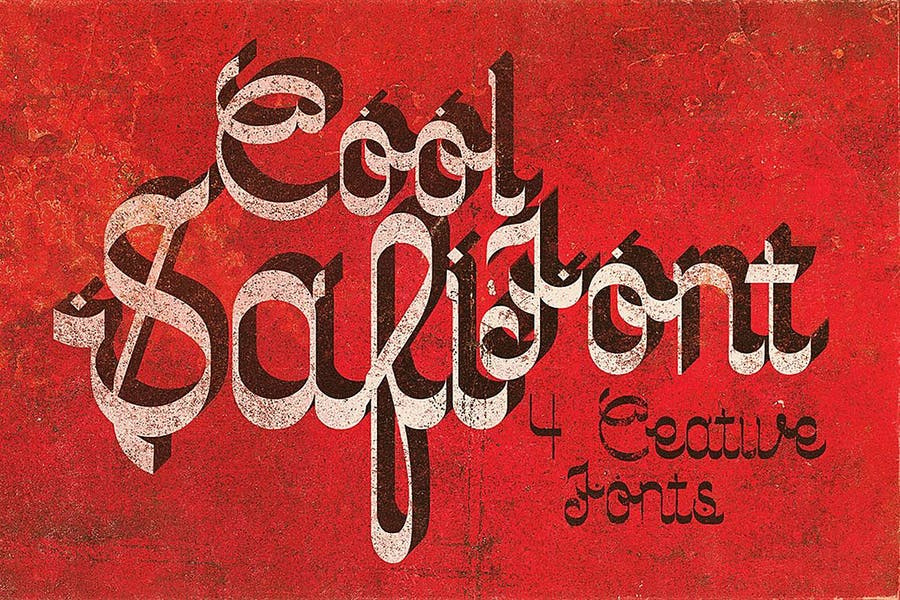
Safi - Unique Calligraphy Font
Safi - Unique Calligraphy Font is perfect for luxury wedding invitations, elegant branding projects, high-end product packaging, sophisticated logo design, premium magazine layouts, fashion boutique signage, fine art exhibitions, upscale restaurant menus, boutique hotel materials, jewelry brand identity, and exclusive event stationery.
Safi - Unique Calligraphy Font is exciting because it masterfully blends traditional calligraphic artistry with contemporary design sensibilities, creating flowing letterforms that dance gracefully across the page while maintaining exceptional readability and sophistication that elevates any project to luxury status.
The Safi - Unique Calligraphy Font family includes elegant variations: Regular, Bold, Light, Swash alternates, Decorative ligatures, and Ornamental elements, offering designers an extensive toolkit for creating refined typographic compositions that capture timeless elegance.
Experience the artistry of handcrafted typography with Safi - Unique Calligraphy Font Free Download. This exquisite calligraphic typeface transforms ordinary text into extraordinary works of art that captivate audiences with their refined beauty and sophisticated charm. Whether you're designing for luxury brands, exclusive events, or premium publications, Safi - Unique Calligraphy Font delivers unmatched elegance and visual impact.
The font's meticulously crafted letterforms showcase the fluid beauty of traditional pen-and-ink calligraphy while incorporating modern design principles that ensure optimal performance across digital and print media. Each character flows seamlessly into the next, creating harmonious compositions that feel both timeless and contemporary.
Safi - Unique Calligraphy Font excels in creating memorable brand experiences for businesses seeking to communicate refinement, exclusivity, and attention to detail. Its graceful curves and elegant flourishes make complex information feel approachable while maintaining an air of sophistication that resonates with discerning audiences.
Creative professionals treasure how Safi - Unique Calligraphy Font elevates ordinary design elements into extraordinary focal points. The font's organic flow and authentic calligraphic character bring warmth and personality to corporate communications, making brands feel more human and approachable while maintaining professional credibility.
This remarkable typeface shines in applications where emotional connection and visual impact are paramount. From boutique wine labels to luxury spa branding, Safi - Unique Calligraphy Font creates lasting impressions that communicate quality, craftsmanship, and artistic excellence.